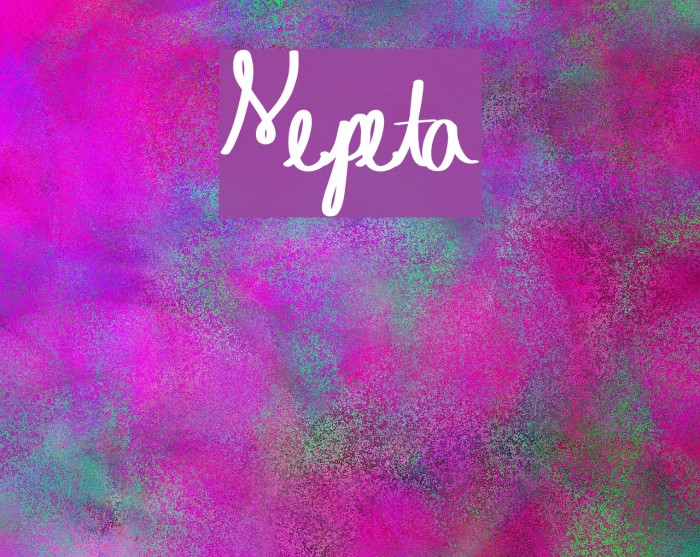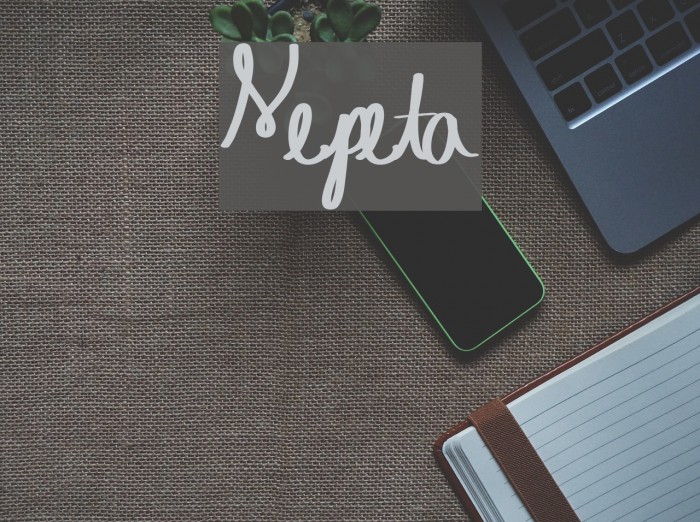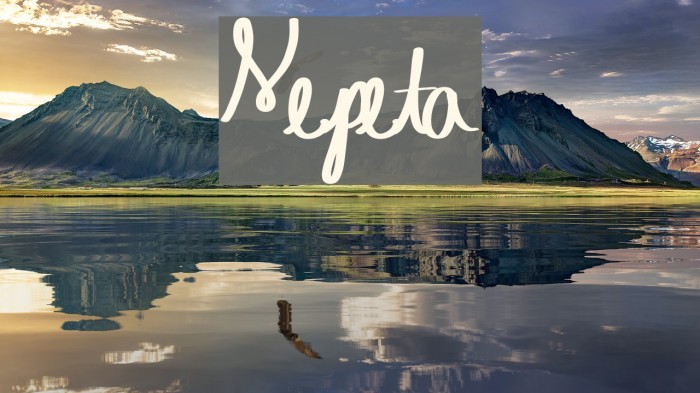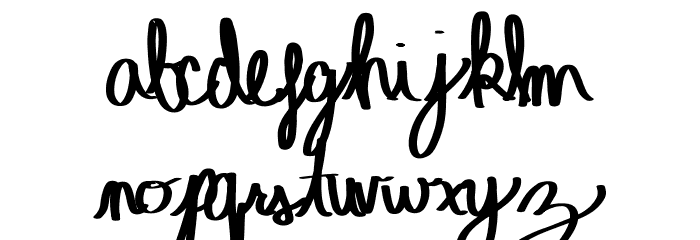
Nepeta Font
Nepeta Description
This font features a dynamic and flowing script style, characterized by its elegant and cursive letterforms. The uppercase letters are bold and expressive, with intricate loops and swirls that add a touch of sophistication. The lowercase letters maintain a consistent fluidity, enhancing readability while preserving the artistic flair. The numbers and special characters are crafted with the same attention to detail, ensuring a cohesive look across all elements. This font's unique style makes it suitable for creative and decorative applications, where a personal and artistic touch is desired.
A dynamic and flowing script font with elegant, cursive letterforms from Uncategorized fonts.
- Proposed Projects: Ideal for wedding invitations, greeting cards, branding, and artistic projects.
- Use Case: Logos, Invitations, Artistic projects